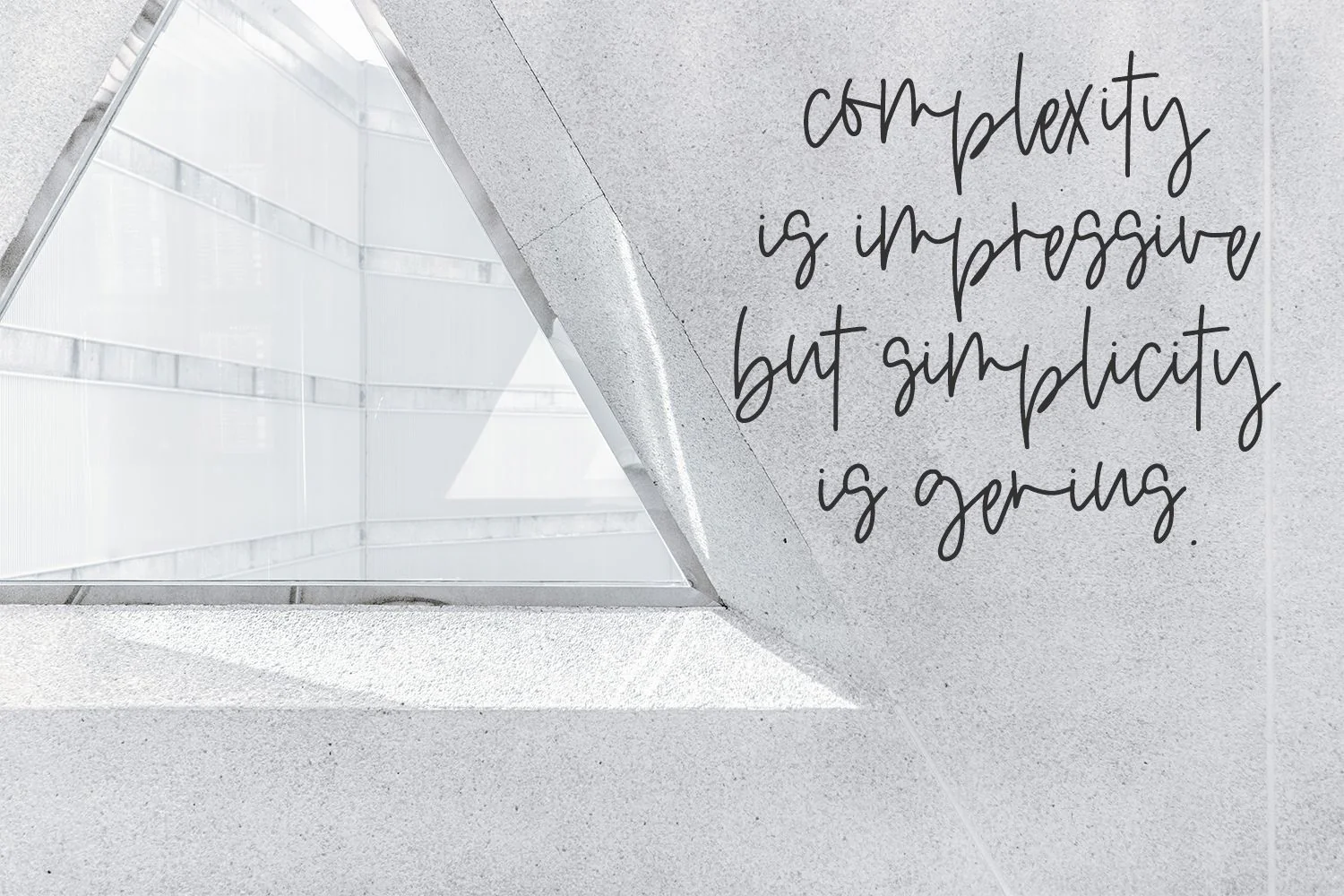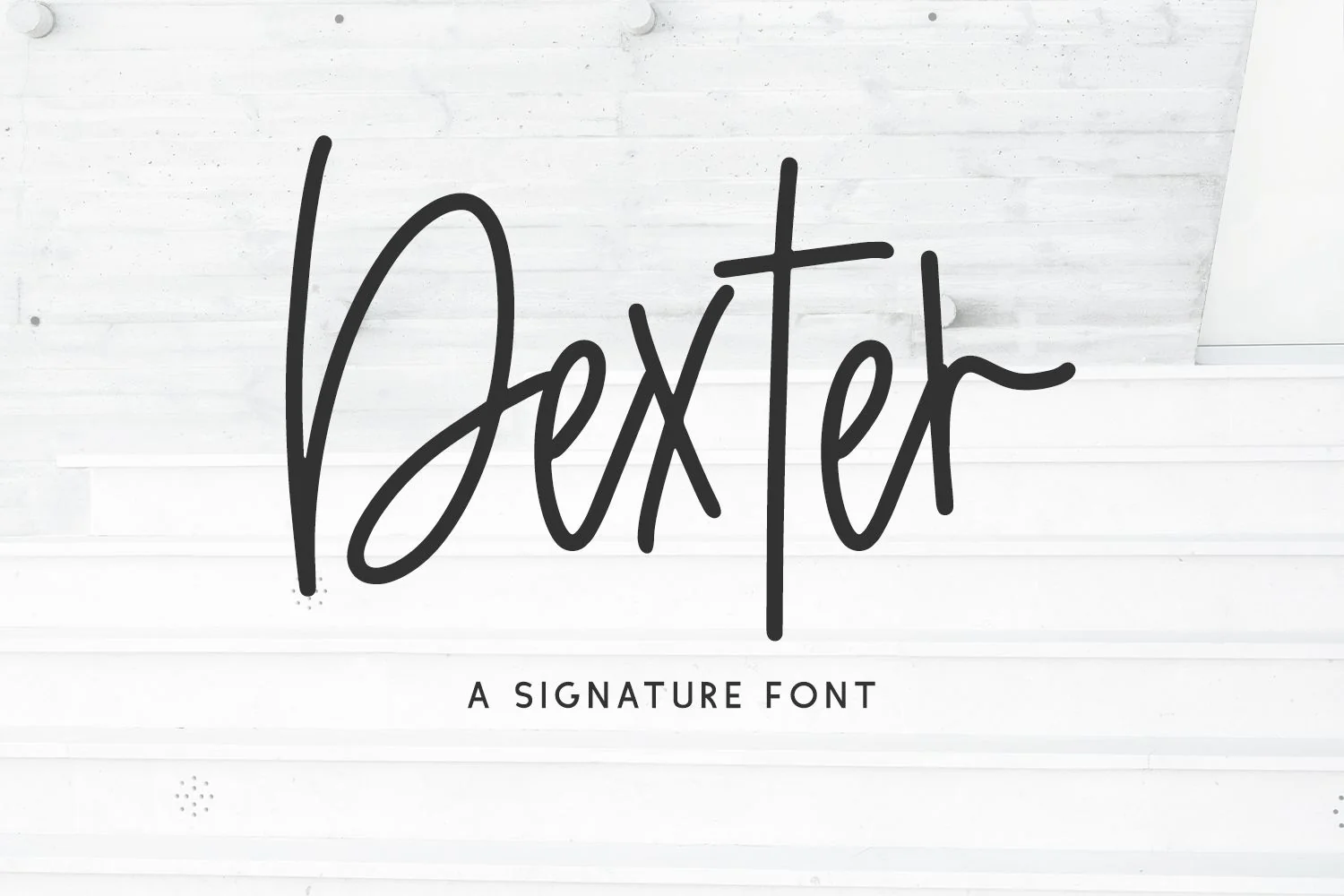
Introducing Dexter Script, a messy signature font.
Dexter Script is best for:
- logos + branding for gender-neutral applications
- website design + website accents - think design blogs, travel blogs, fashion blogs, & more
- clean print design, like magazines + flyers
- header elements that need handwritten touch